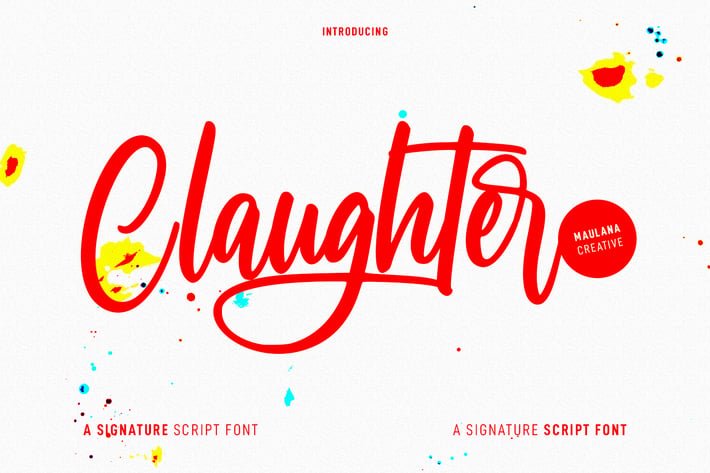
Claughter Script Font
Claughter is a modern casual signature script font. With medium contrast stroke, fun character with a bit of ligatures and stylistic alternates. To give you an extra creative work. Claughter font support multilingual more than 100+ language. This font is good for logo design, Social media, Movie Titles, Books Titles, a short text even a long text letter and good for your secondary text font with sans or serif. Make a stunning work with Claughter font.